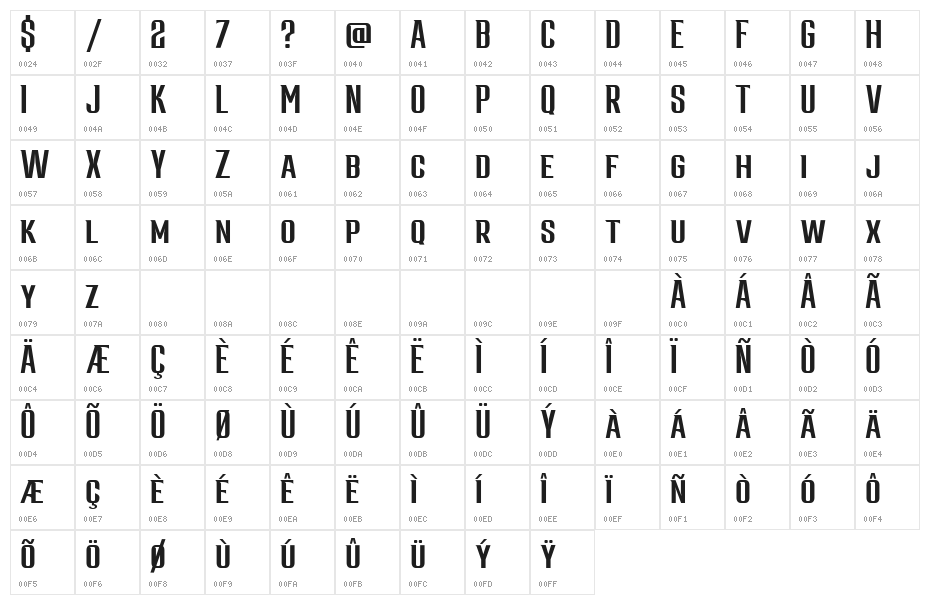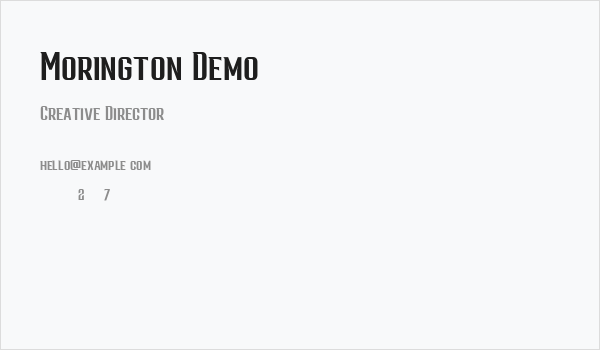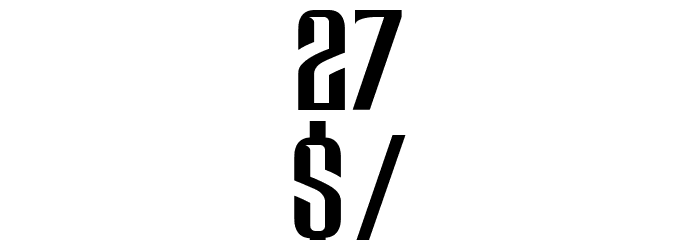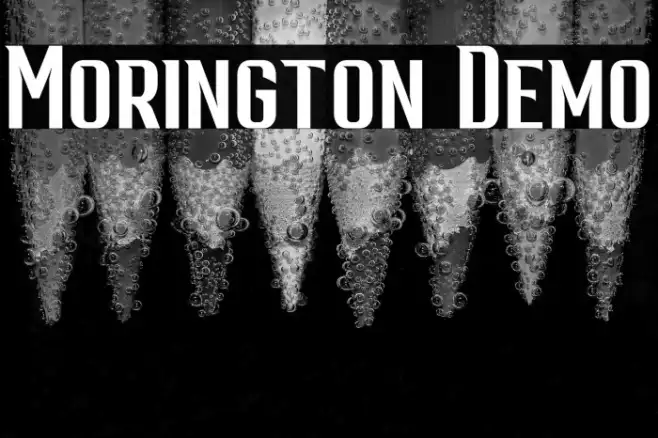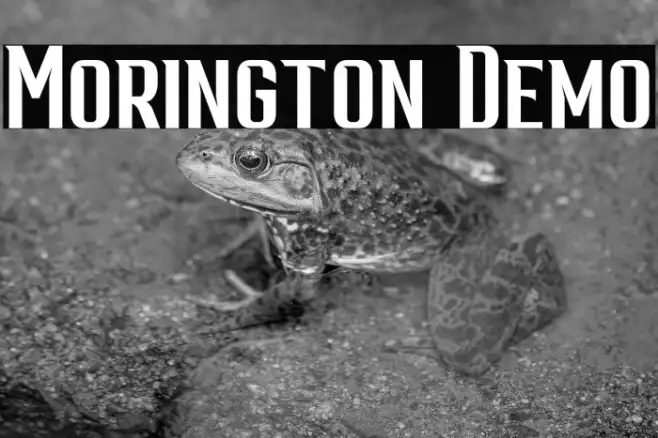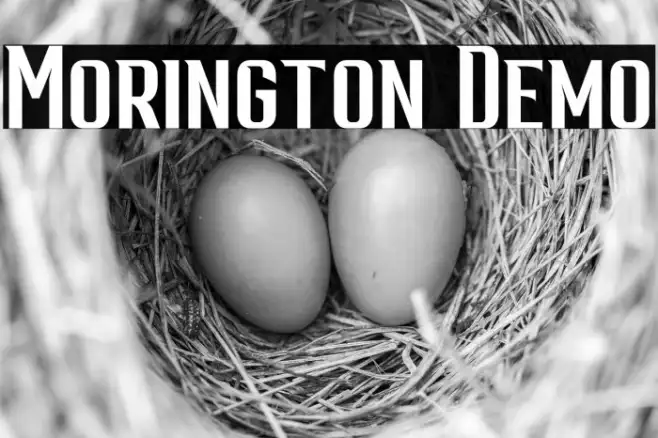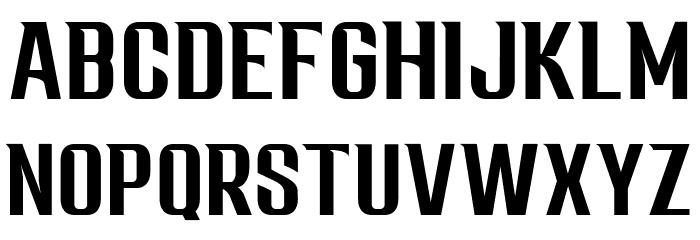
Morington Demo Font
Morington Demo Description
This font features a bold and impactful design, characterized by its strong vertical lines and slightly condensed letterforms. The uppercase letters are particularly striking, with a uniform height and a consistent stroke width that conveys a sense of authority and modernity. The numbers and special characters maintain this bold aesthetic, ensuring a cohesive look across all elements. The font's overall style is both modern and classic, making it versatile for various design applications.
| Proposed Projects | Ideal for branding projects, headlines, posters, and any design requiring a strong visual impact. |